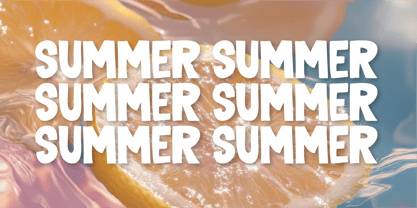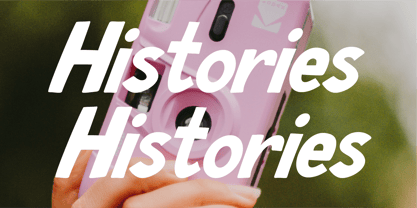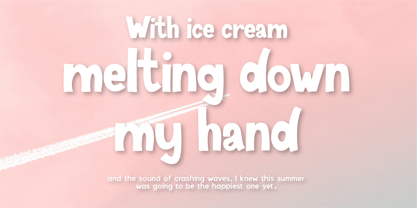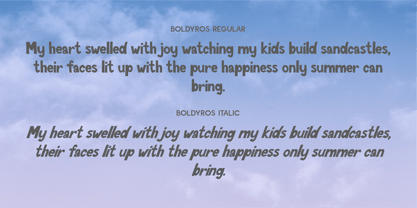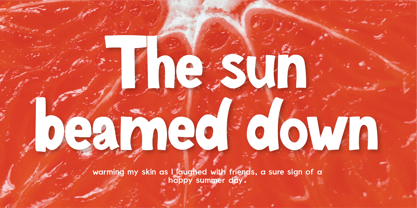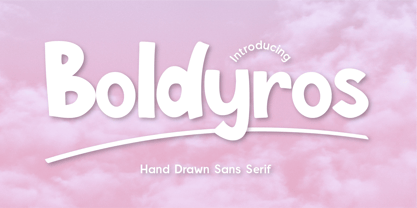
CF Boldyros
by Indotype
The CF Boldyros Font Family was designed by Gilang Mei Nugraha, Frederik Aristaputra and published by Indotype. CF Boldyros contains 2 styles and family package options. More about this family
Boldyros – A Fun & Playful Hand-Drawn Sans Serif
Bring your designs to life with Boldyros, a bold and lively hand-drawn sans serif that radiates energy and friendliness. With its slightly irregular letterforms and natural strokes, this font captures the essence of handcrafted charm while maintaining a strong and confident presence.
Whether you're designing logos, children’s books, packaging, social media graphics, or playful branding, Boldyros delivers a fresh and engaging look. Its rounded edges and quirky shapes create a warm and inviting personality, perfect for brands that want to stand out with a casual, friendly, and approachable style.
Why Choose Boldyros?
✔ Bold & Friendly: Eye-catching yet approachable, ideal for branding and headlines.
✔ Handcrafted Feel: Natural strokes with an organic, slightly irregular touch.
✔ Versatile & Playful: Works well for kids' designs, social media, and creative projects.
✔ Easy to Read: Clean yet expressive letterforms for clear communication.
- Standard Character A-Z, a-z, 0-9, Punctuation & symbols
- Regular and Italic
Designers: Gilang Mei Nugraha, Frederik Aristaputra
Foundry: Indotype